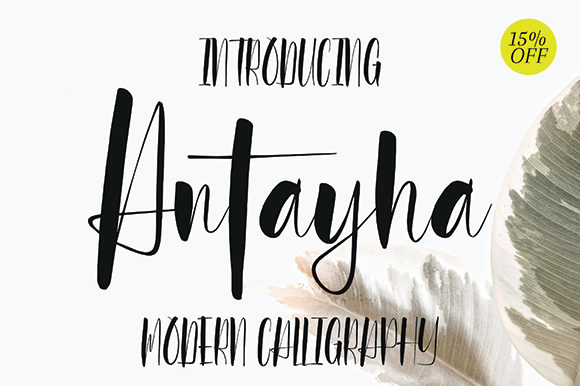
The Sweet Spot: Discovering the Charm of Antayha Font
I’ll never forget the moment I stumbled upon Antayha Font while working on a whimsical craft project for a client. I was on a mission to find the perfect handwritten font that would bring a touch of warmth and personality to the design. As I scrolled through my font library, Antayha caught my eye with its sweet and friendly vibe. It was love at first sight! ✨
In this article, I’ll share my experience with Antayha Font, its unique features, and how to make the most of it in your designs. Whether you’re a designer, crafter, or creative hobbyist, you’ll learn why Antayha is an excellent addition to your font collection.
What I Love About Antayha Font
- ✨ Unique and natural style: Antayha’s handwritten charm makes it perfect for a wide range of designs, from whimsical crafts to elegant branding.
- ✅ Highly versatile: This font can be used for various projects, including invitations, greeting cards, posters, and more.
- 💕 Emotional connection: Antayha’s friendly and approachable feel helps create an instant connection with your audience.
While Antayha Font is an amazing addition to any design, there are a few things to keep in mind: 🤔
- ⚠️ Legibility at small sizes: As with many handwritten fonts, Antayha may become less legible at very small sizes. Use it at larger sizes or optimize for digital use.
- ⚠️ Limited formal applications: Due to its playful nature, Antayha might not be the best fit for formal or corporate designs.
A Practical Guide: Using Antayha Font in Your Designs
The Designer Inspiration Behind Antayha Font
Antayha Font was created with the intention of capturing the essence of handwritten communication. The designer aimed to create a font that would evoke a sense of warmth and friendliness, making it perfect for a wide range of creative projects.
| Font Name | Antayha Font |
| Author | Pineungtype & Missinklab |
Q: What type of projects is Antayha Font best suited for?
A: Antayha Font is versatile and can be used for various projects, such as invitations, greeting cards, posters, and more.
Q: Is Antayha Font suitable for digital use?
A: Yes, Antayha Font is suitable for digital use, but make sure to optimize it for screen use by choosing the right font size and style.